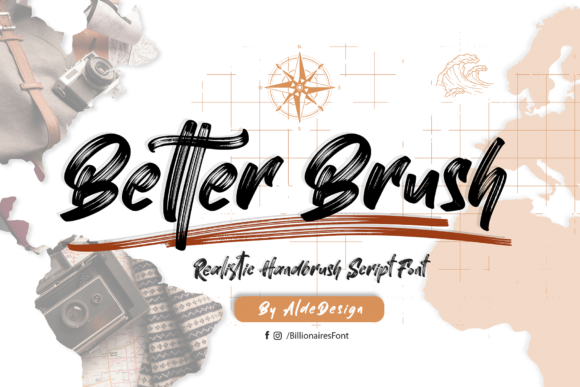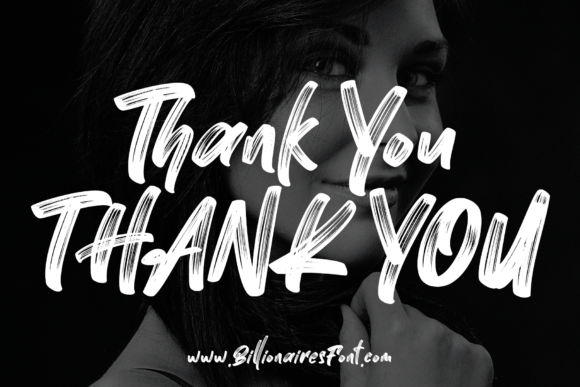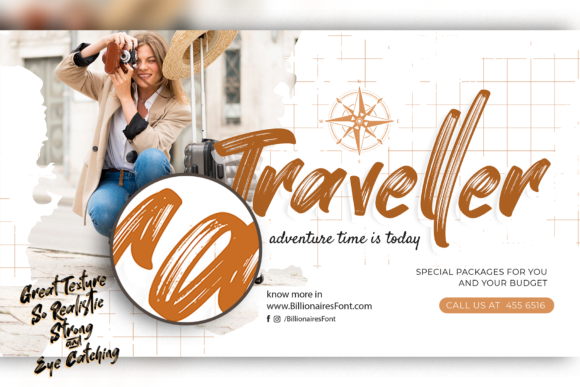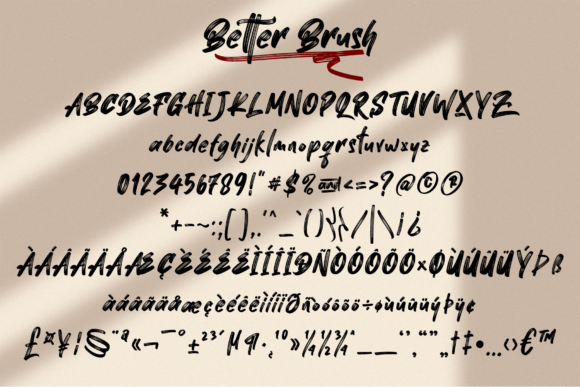
Freebie Wednesday: Better Brush Font
Better Brush is a cool and bold brushed handwritten font. It can be used for various purposes such as logos, wedding invitations, headings, t-shirts, letterhead, signage, labels, news, posters, badges and so much more. Available for free on the Creative Fabrica website for 5 days. Don’t miss out!